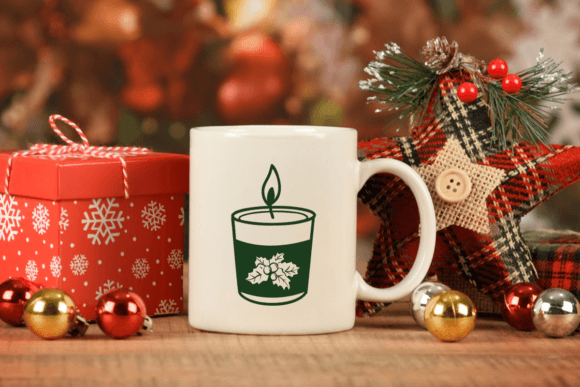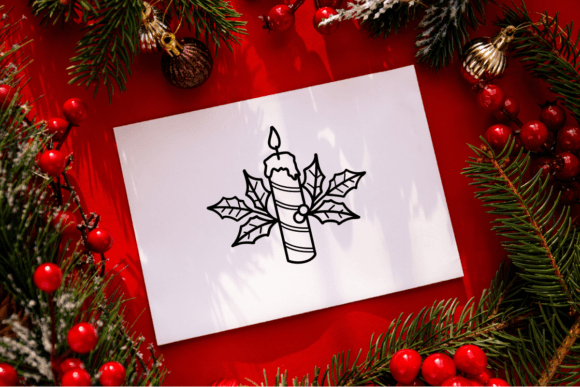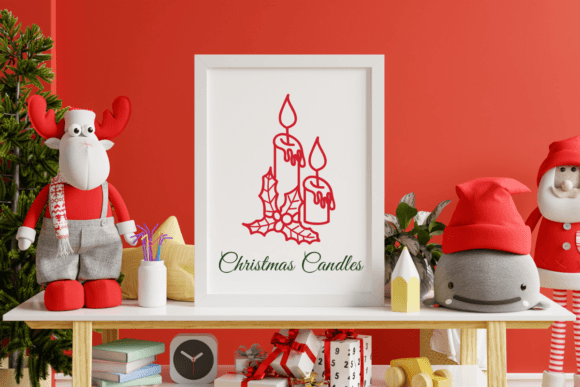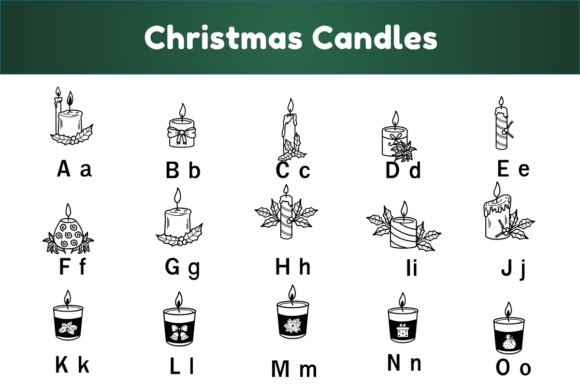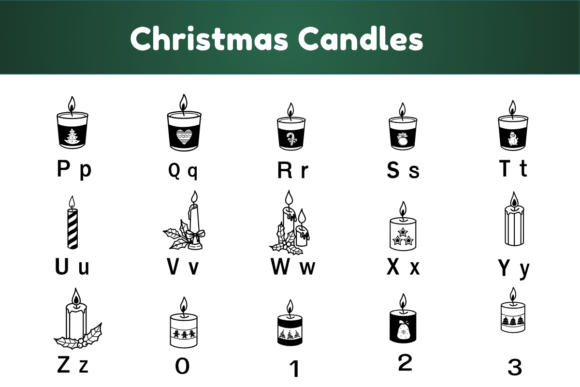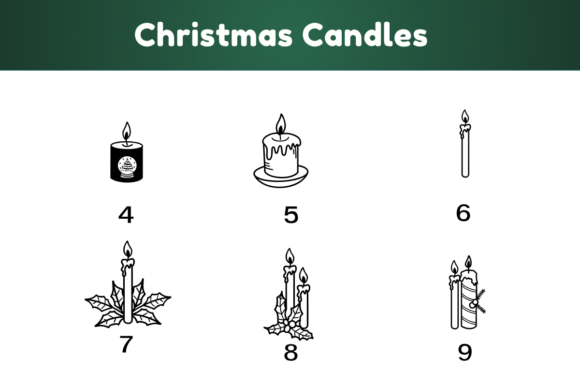
Deck the Halls with Warmth and Style
It’s that magical time of the year when the air is filled with the scent of pine, and the twinkling lights on the tree make everything feel merry and bright. As designers, we’re always on the lookout for ways to add a personal touch to our holiday projects. And what better way to do that than with a font that captures the essence of a cozy Christmas evening?
Enter Christmas Candles Font, a charming and festive typeface that’s perfect for holiday greetings, cards, and decorations. Each letter is designed to resemble a candle, complete with a soft, warm glow that’s sure to put your audience in the holiday spirit. For designers, this font is a valuable asset, offering a unique and creative way to add some holiday cheer to your projects.
Christmas Candles Font Key Features
- Unique Characteristics: The font features intricate candle illustrations and festive designs, adding a touch of holiday cheer to any design.
- Number of Glyphs: The font includes a wide range of glyphs, including uppercase and lowercase letters, numbers, and special characters, ensuring seamless text rendering.
Designer Review: Christmas Candles Font
At first glance, the Christmas Candles Font is a visually appealing font that screams holiday cheer. The use of ✨ warm, golden tones and festive flourishes creates a cozy atmosphere perfect for Christmas cards, gift tags, or holiday advertisements. The font’s ✨ playful and whimsical feel will surely put users in the mood for the most wonderful time of the year.
However, there are some limitations to consider. ⚠️ For one, the font may not be suitable for all types of content, as it can come across as a bit too flashy or over-the-top for more serious or formal materials. Additionally, ⚠️ the font’s overall design may not be as versatile as some users might hope, making it difficult to adapt to different design contexts.
Here are a few things to keep in mind when using the Christmas Candles Font:
- Best used for holiday-themed content, such as Christmas cards, gift tags, or advertisements.
- Not recommended for formal or serious content.
- May require additional design elements to balance out the font’s overall look.
Overall, the Christmas Candles Font is a delightful and festive choice for holiday-themed design projects. While it may have some limitations, its unique charm and ✨ visual appeal make it a great addition to any designer’s toolkit during the holiday season.
The Christmas Candles Font is ideal for creating festive holiday designs, such as Christmas cards, gift tags, or social media posts. You can also use it to add a touch of holiday cheer to your website or blog.